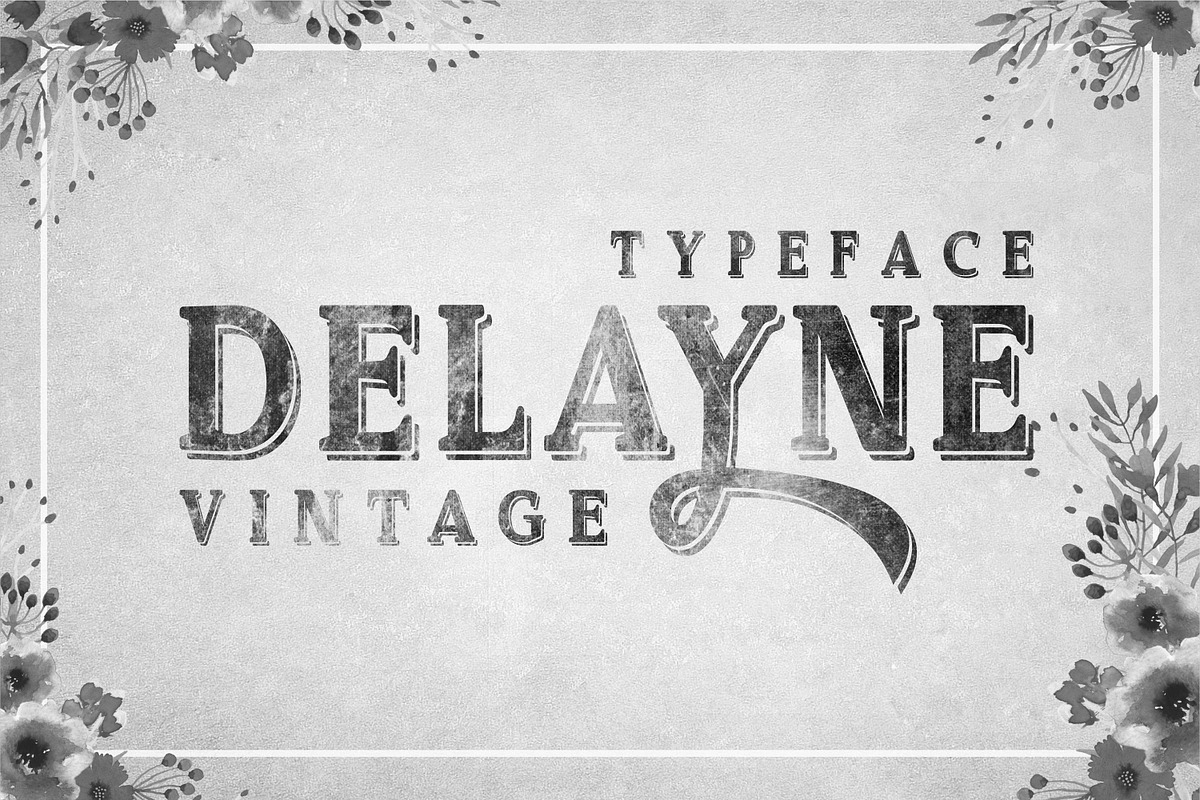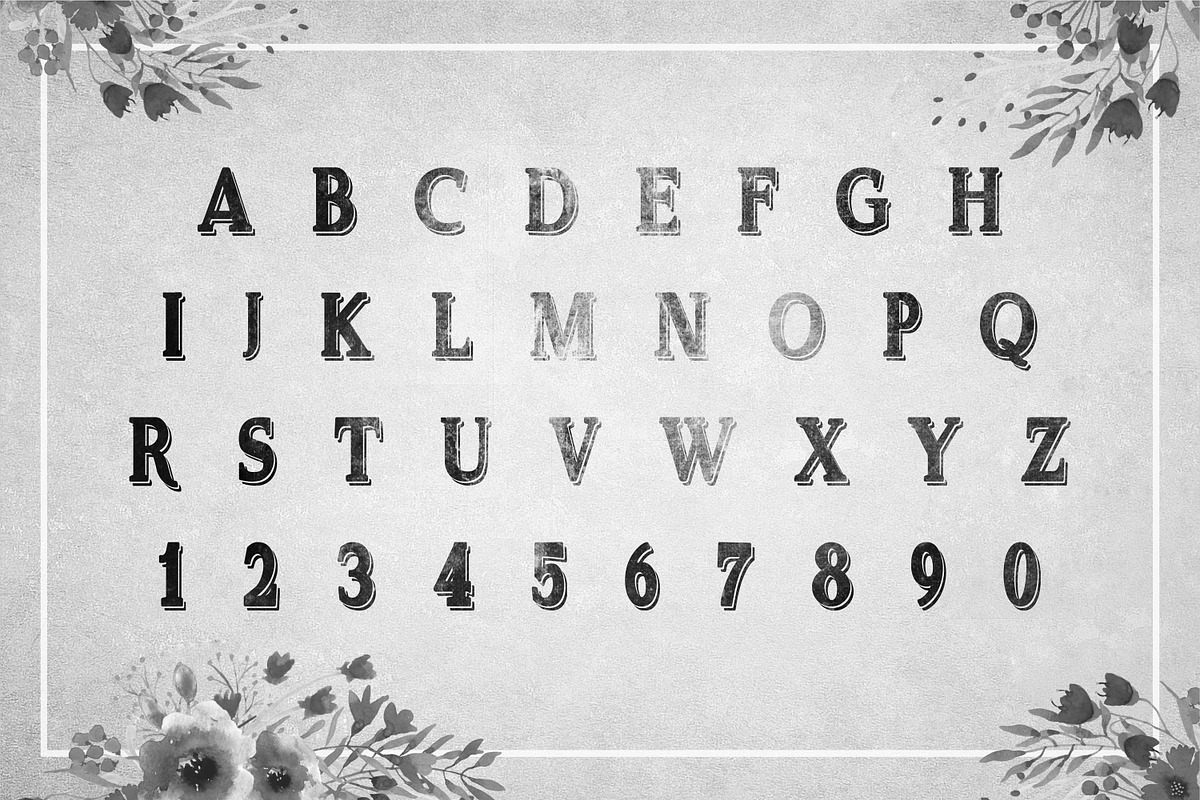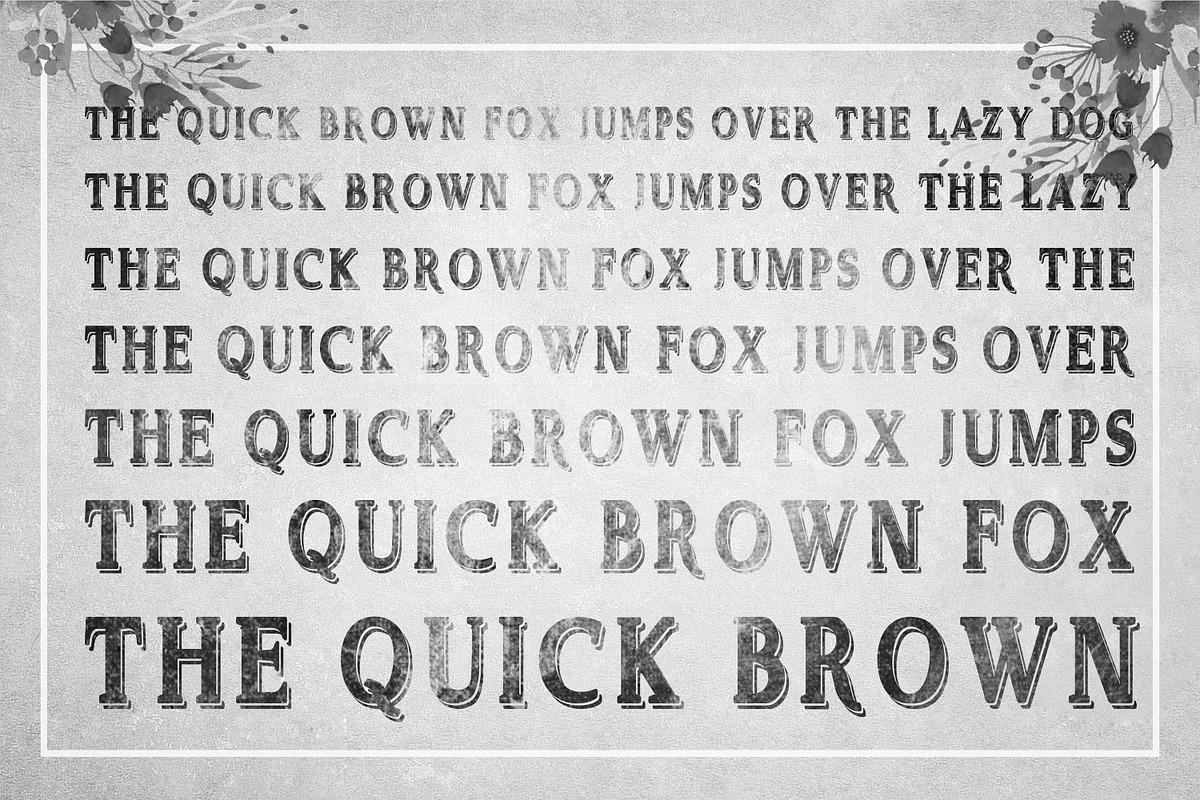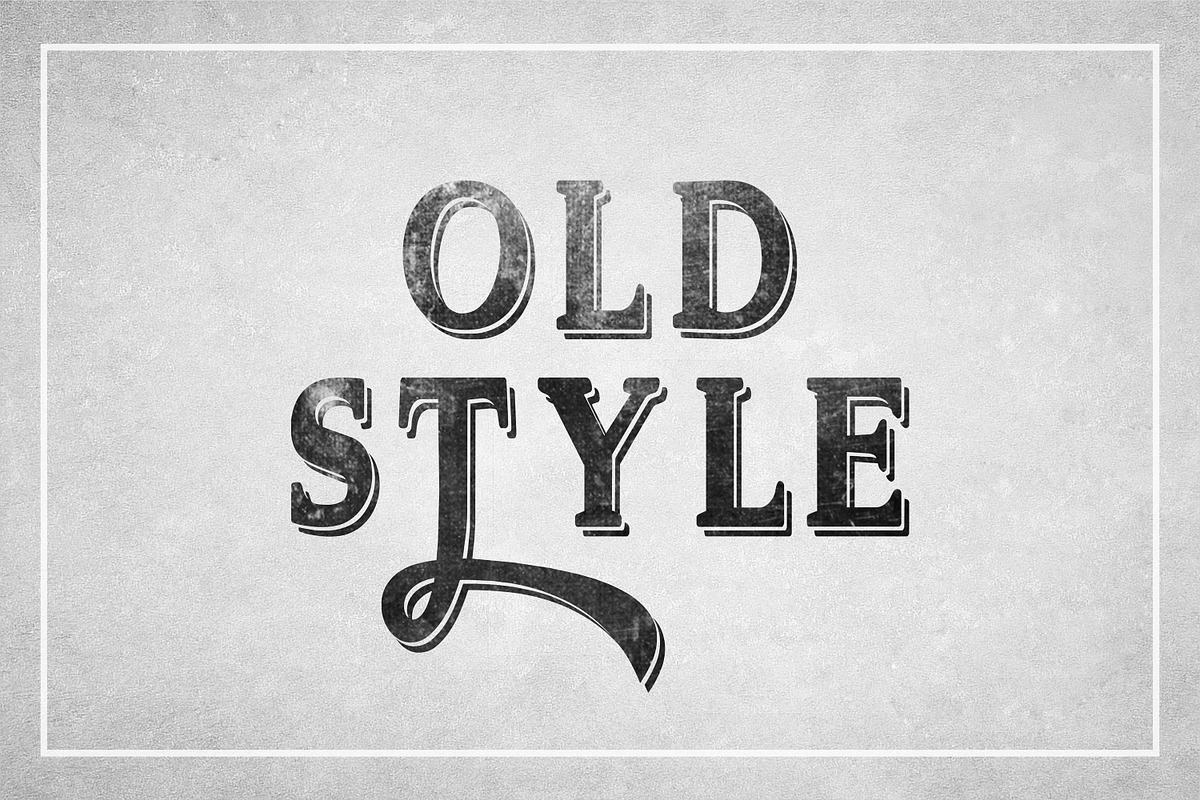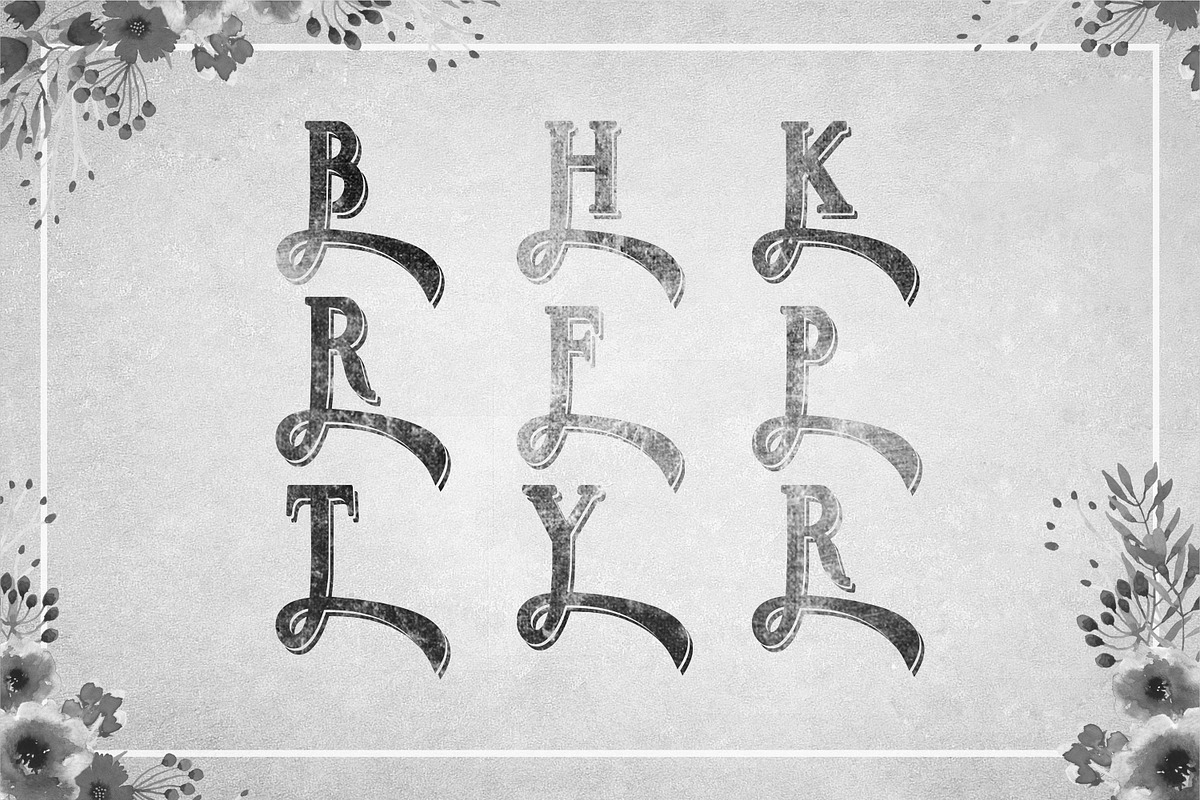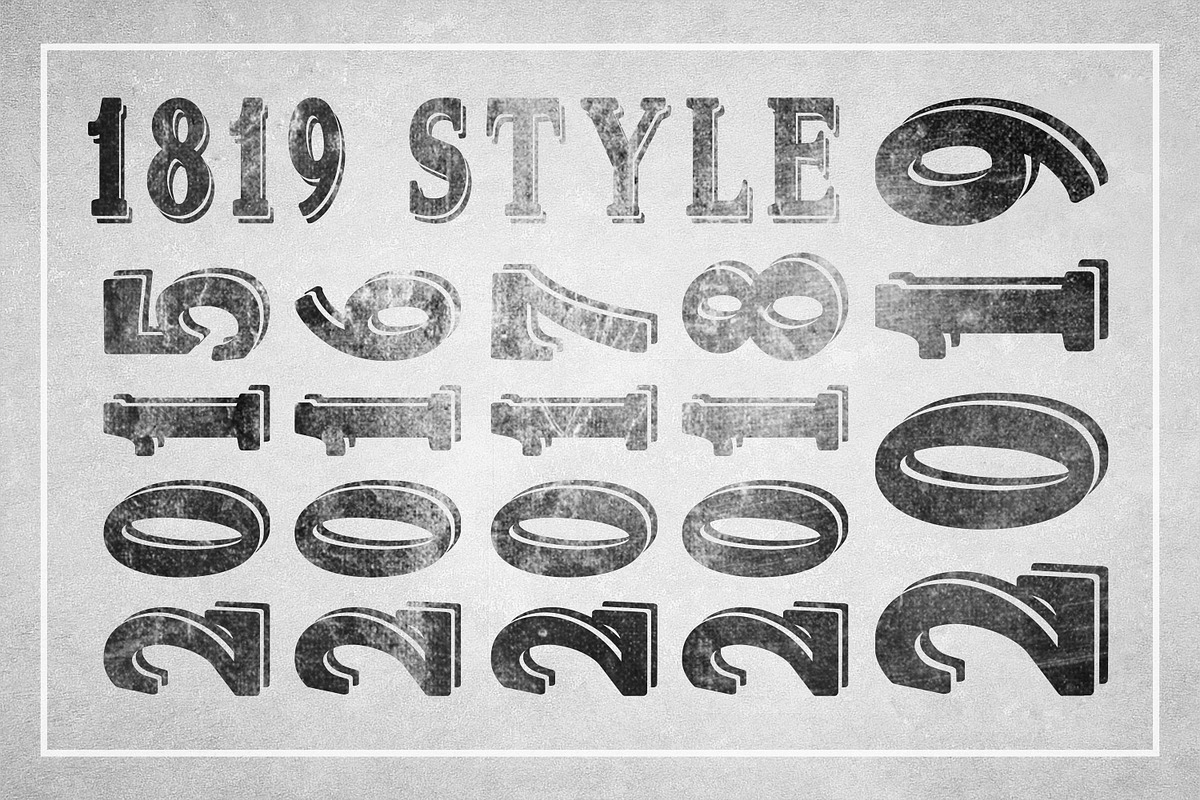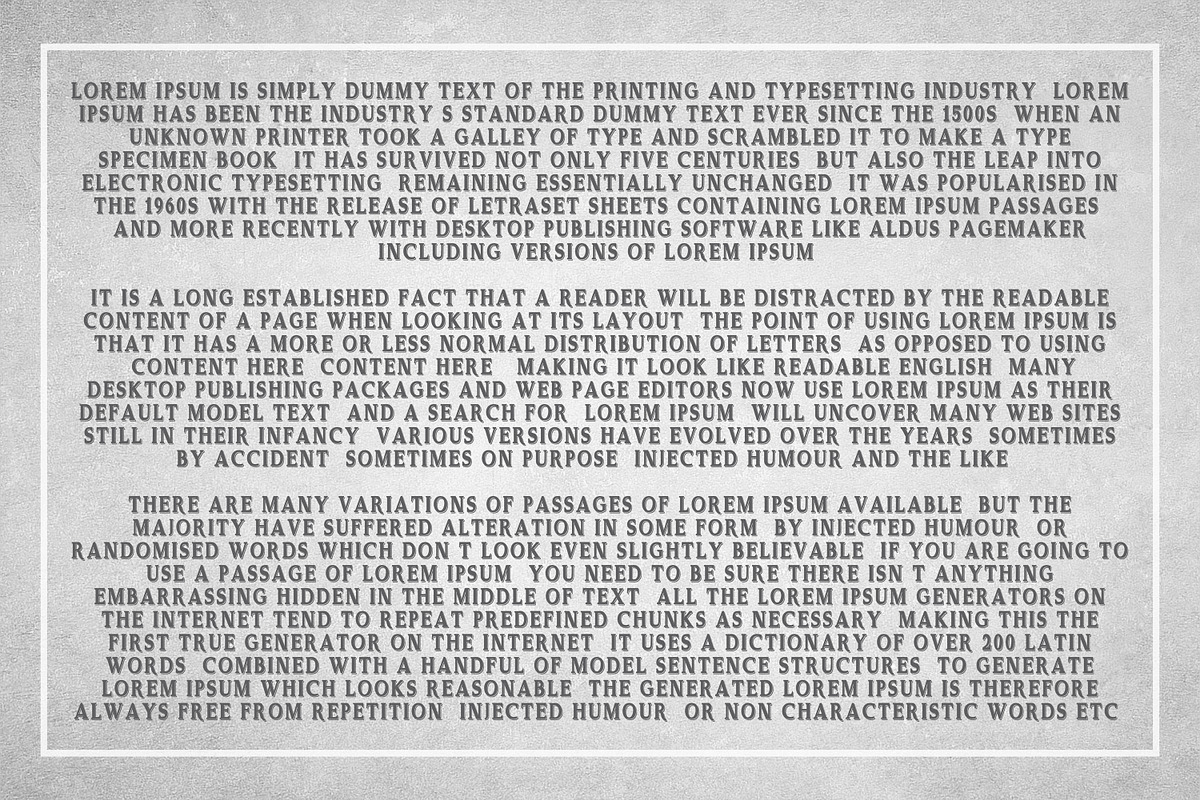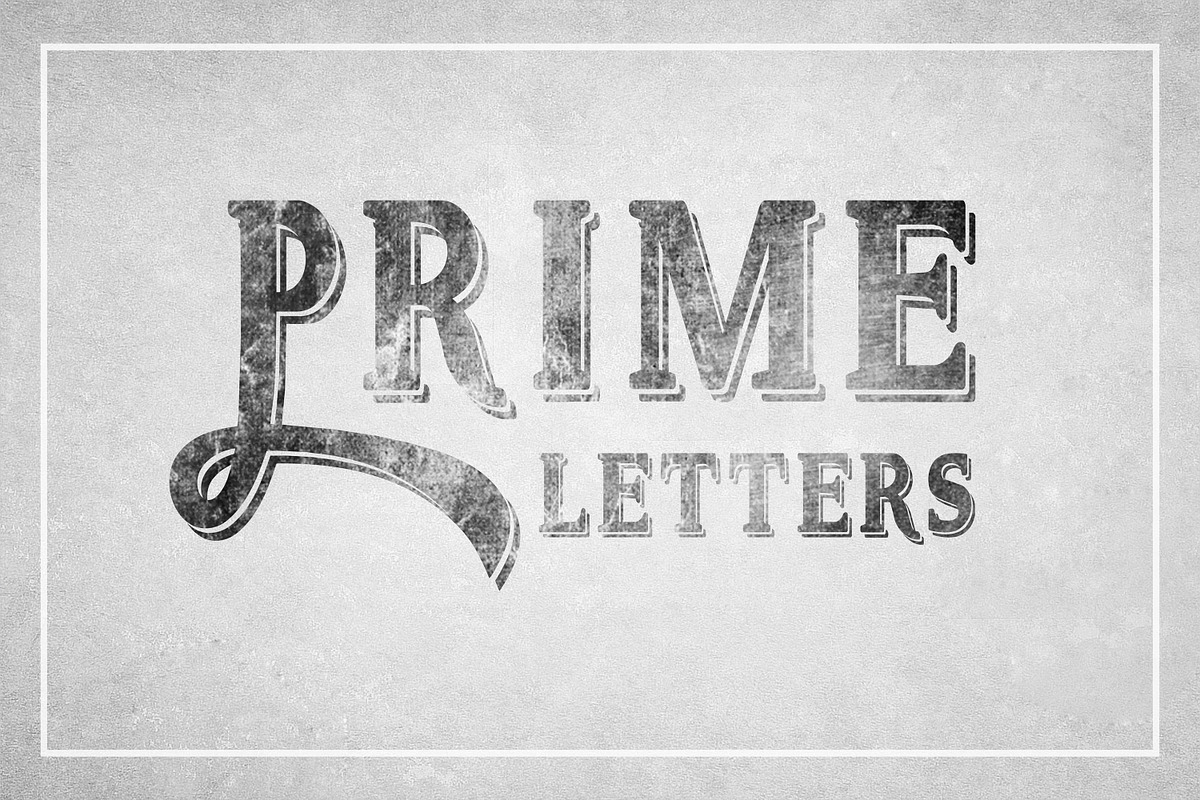
Delayne - Vintage Typeface
New interesting font have bold shape letters with shadow. The letters have attractive design. Font with ornamental elements. Additional elements have been added to symbols section. You can access them from font options menu from all software. The vintage style is visible from its structure and letters design. You can use this font for many various design ideas. Please refer to the list of possible uses we have created to help designers with inspiration and add your idea in comments section below.
Book covers or inside chapters section heading
Posters or postcards design
Party decorations and congratulation cards
Invitation letters and business envelopes
Text headings and graphic themes designs